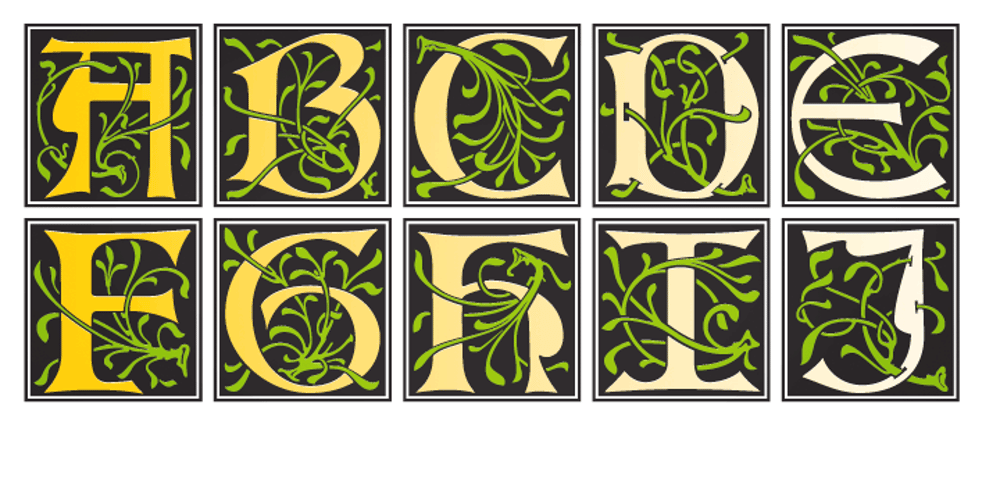
Sattler Font Family was designed by Andreas Seidel, Joseph Kaspar Sattler and published by astype. Sattler contains 2 styles and family package options. Joseph Kaspar Sattler, one of the great German art nouveau artists created these nice initials in 1897 for the famous royal monumental book project Die Nibelunge for the Reichsdruckerei Berlin. Only 200 exclusive signed masterpieces were printed in four years from 1900 till 1904. Joseph Sattler was the art director, typographer and designer in one person. The Reichsdruckerei showed samples of the unfinished work in 1900 at the world exhibition in Paris to advertise the high craftsmanship of the German presses. Style Initials A uses the OpenType features Superscript and Scientific Inferiors to change the fill layer. You can combine up to three different color inks.